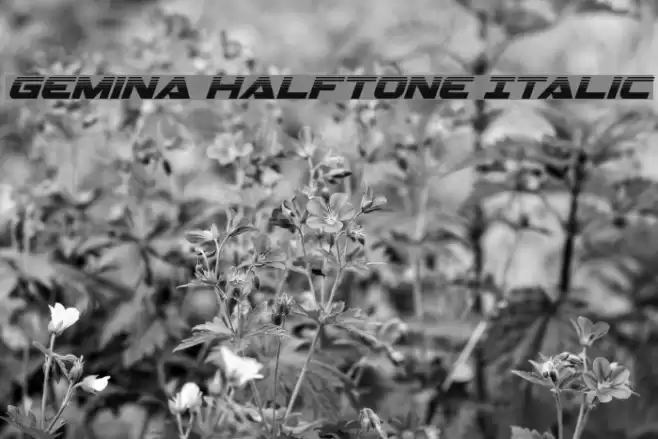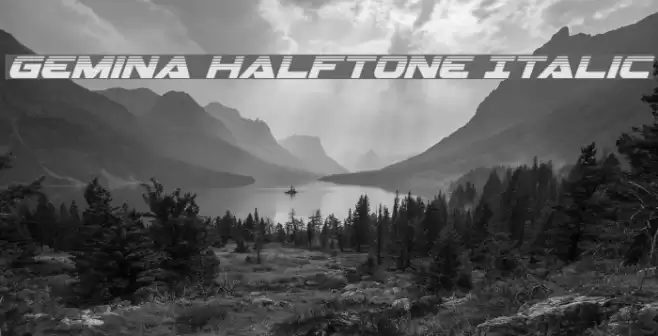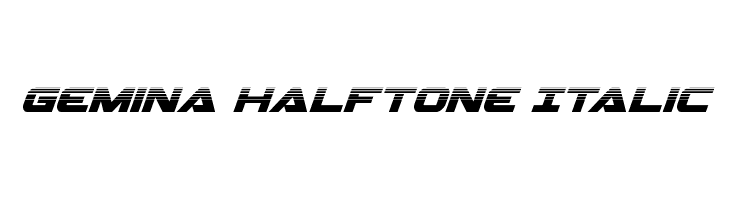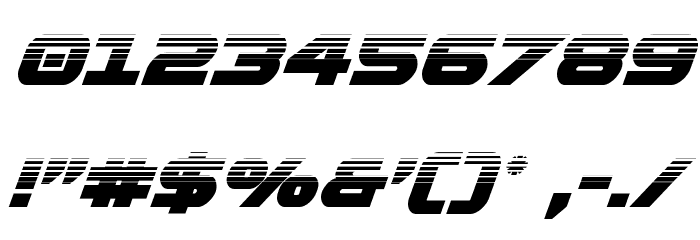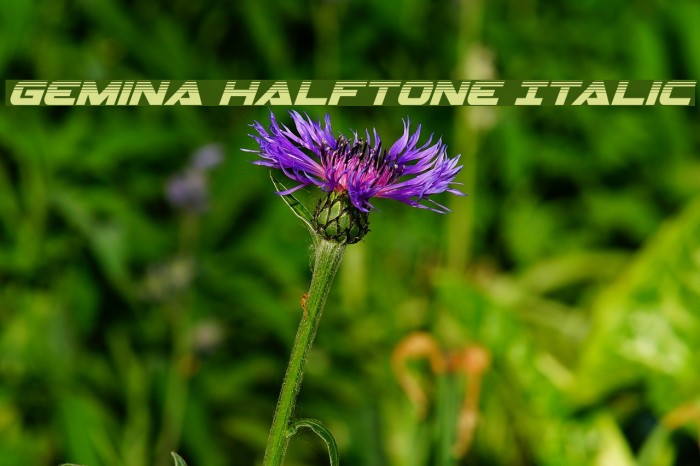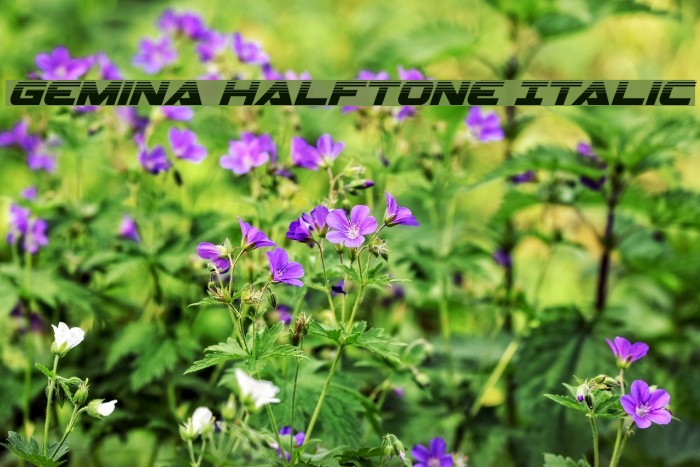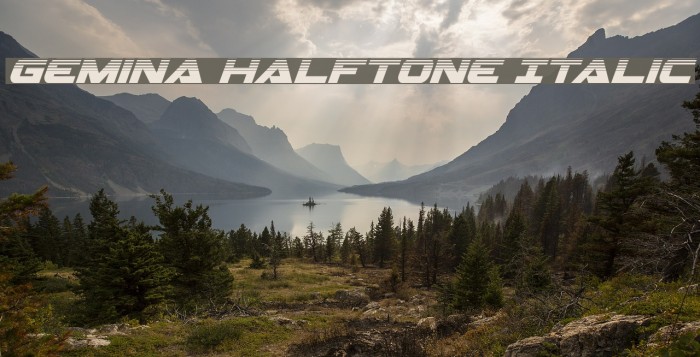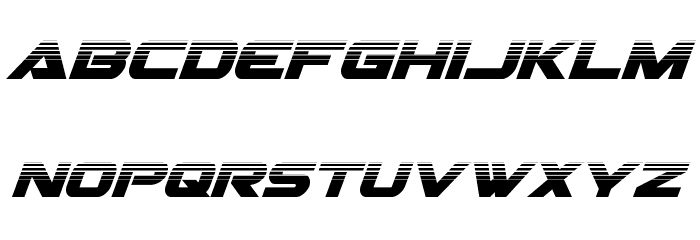
Gemina Halftone Italic Font
Gemina Halftone Italic Description
This font features a bold, italicized style with a distinctive halftone effect. The characters are designed with a futuristic and dynamic appearance, incorporating horizontal lines that create a sense of movement and speed. The uppercase letters are sharp and angular, while the lowercase letters maintain a consistent style, enhancing the overall cohesion of the typeface. Numbers and special characters follow the same design principles, ensuring uniformity across all elements. This font is ideal for projects that require a modern and edgy look, making it suitable for technology-related themes or creative branding.
A bold, italicized font with a futuristic halftone effect and dynamic style from Uncategorized fonts.
- Proposed Projects: Ideal for technology branding, sci-fi posters, video game titles, and modern advertising.